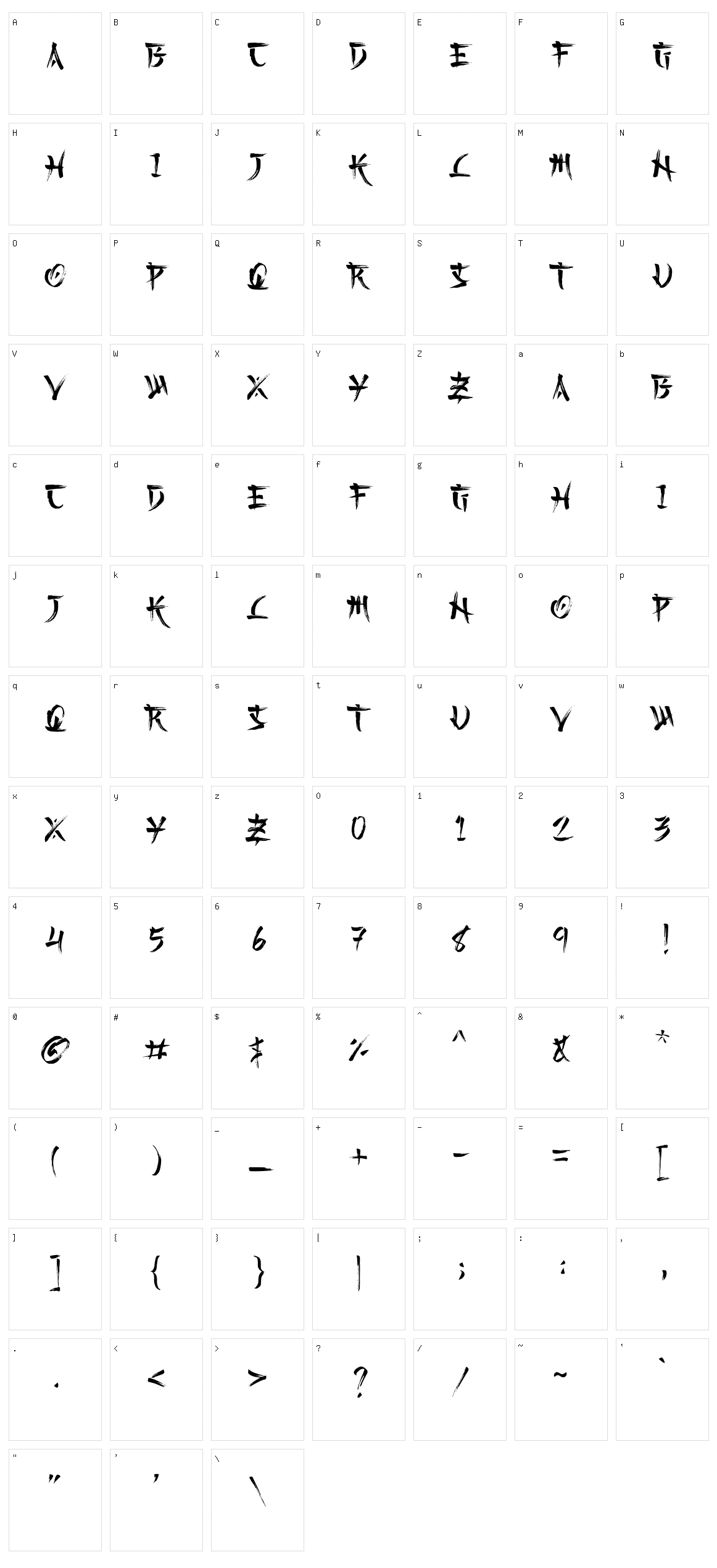
The free font Kashima Brush is carefully designed by Abo Daniel Studio, showcasing a thoughtful balance of creativity and usability and falls under the Asian font style. When you download the ZIP file, it contains only 130.41 KB of font files, making it lightweight and quick to download. Please review the license details below to understand permitted usage and distribution rights. If license information is not available, we recommend using this font for personal projects only or contacting the author directly for commercial usage permissions.